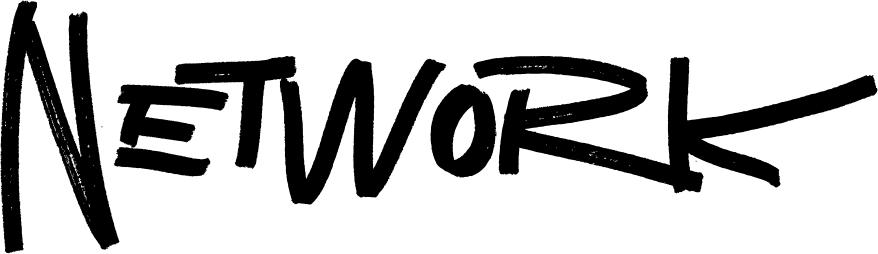
Network Font
Designed byYasir Ekinci
Network is a handwritten font in which all its characters are designed in graffiti style and support a combination of uppercase and lowercase letters. This font conveys a sense of clutter, disorder, and excitement to the audience, thus it can increase the appeal and impact of your content. Network font is ideal for printing on clothes and tattoos.